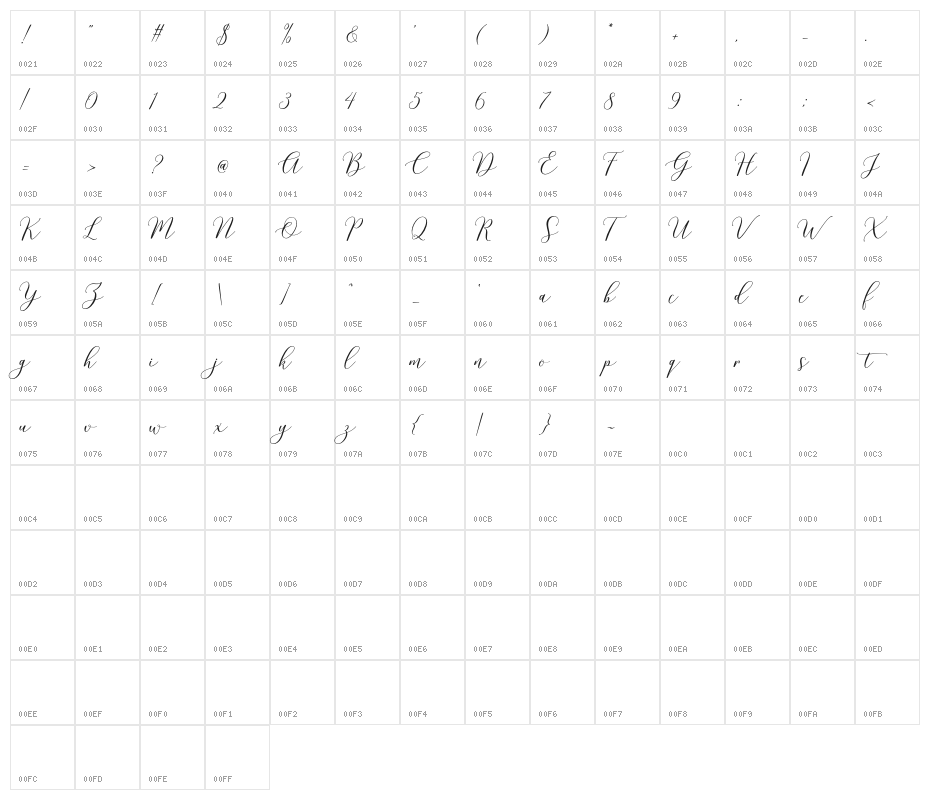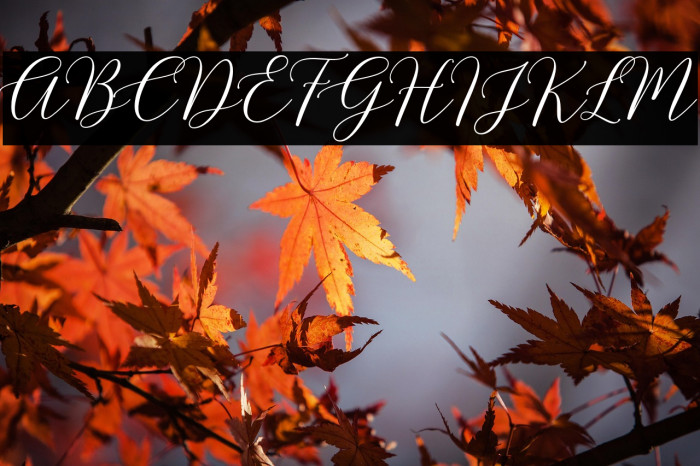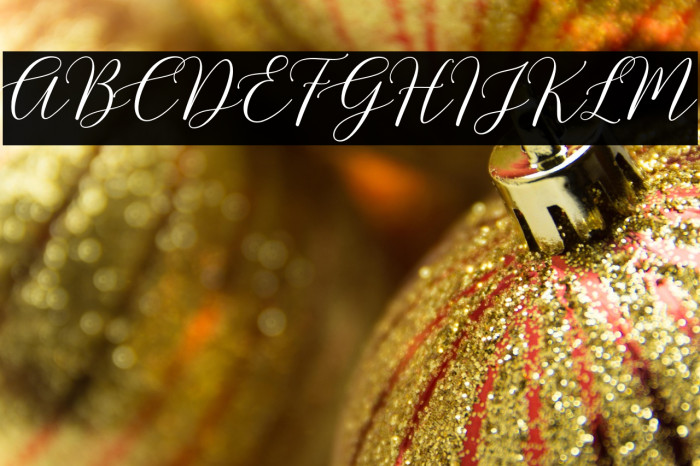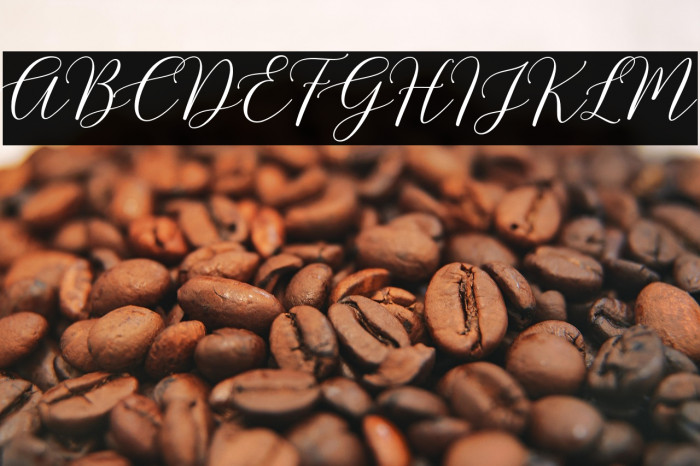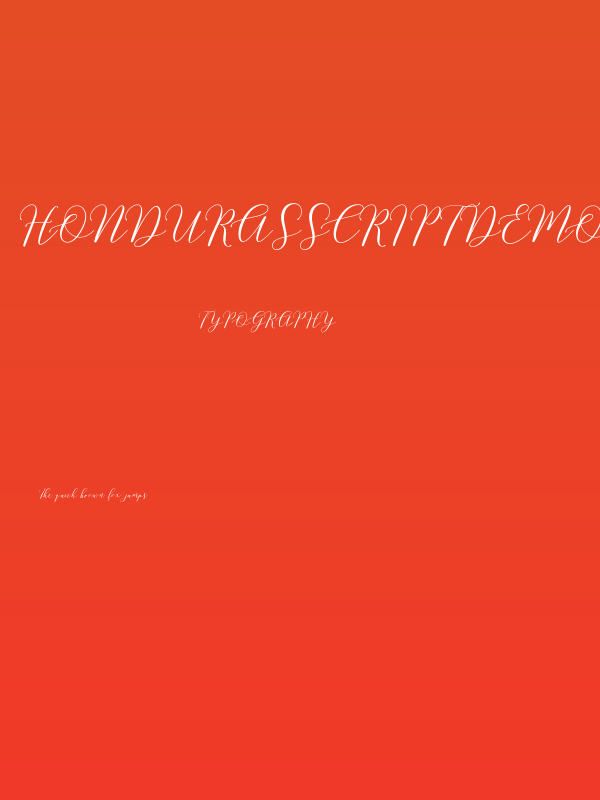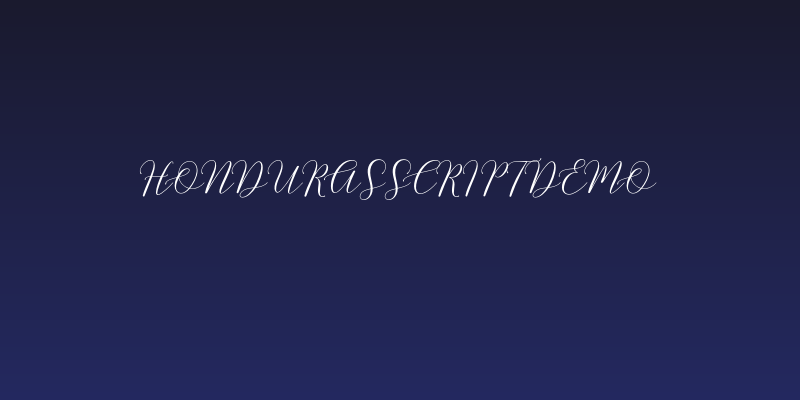
HondurasScriptDemo Font
HondurasScriptDemo Description
This elegant script font features fluid, graceful strokes that mimic the natural flow of handwriting. The uppercase letters are characterized by their sweeping curves and loops, creating a sense of movement and sophistication. The lowercase letters maintain a consistent style, with delicate connections between characters that enhance readability while preserving the font's decorative nature. The numerals and special characters are designed to complement the overall aesthetic, with similar attention to detail and style. This font is perfect for projects that require a touch of elegance and personal flair.
| Overall Style | Elegant, Decorative |
| Use Case | Logos, Invitations, Decorative text |
| Proposed Projects | Ideal for wedding invitations, greeting cards, branding, and elegant packaging. |